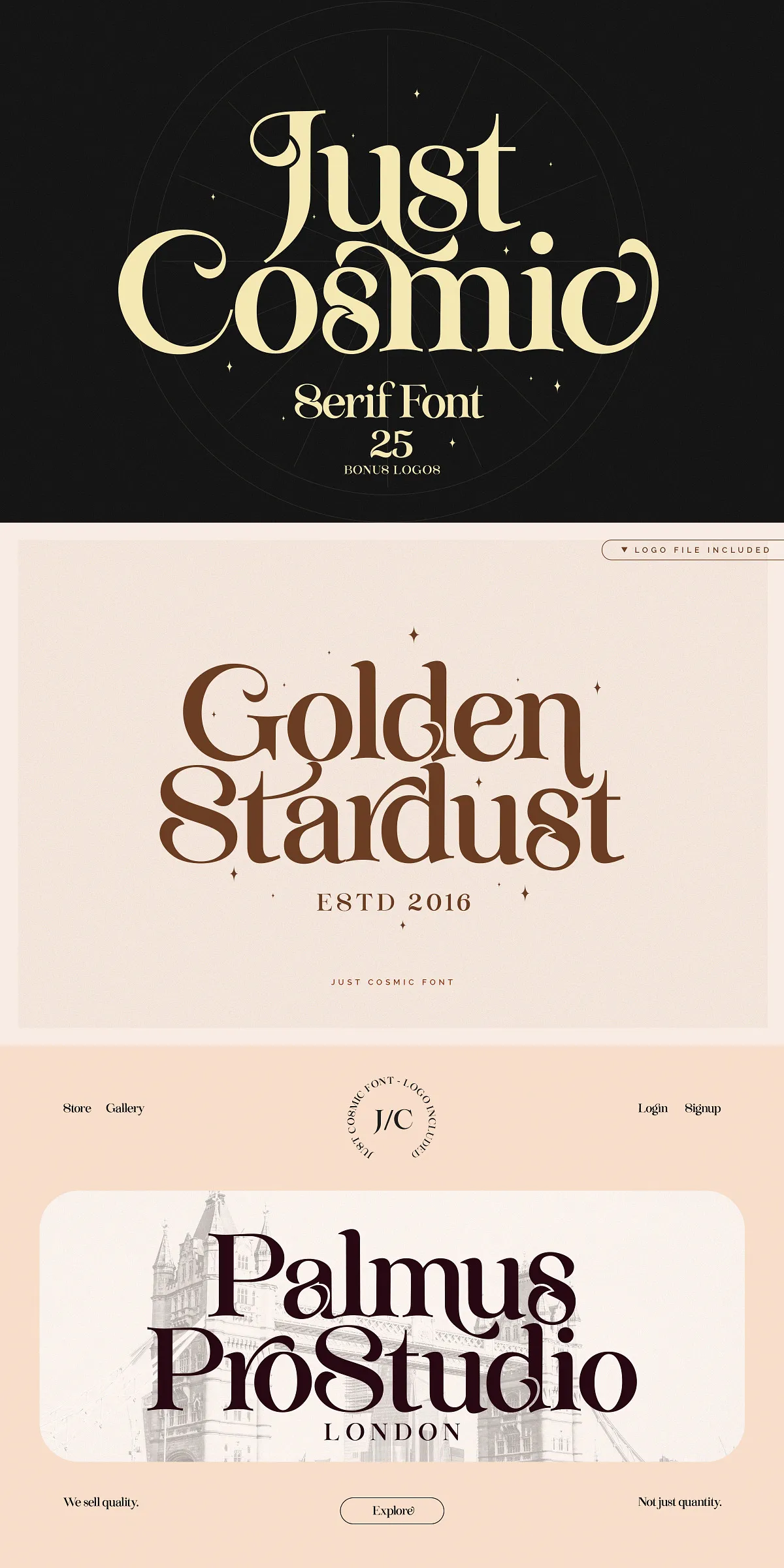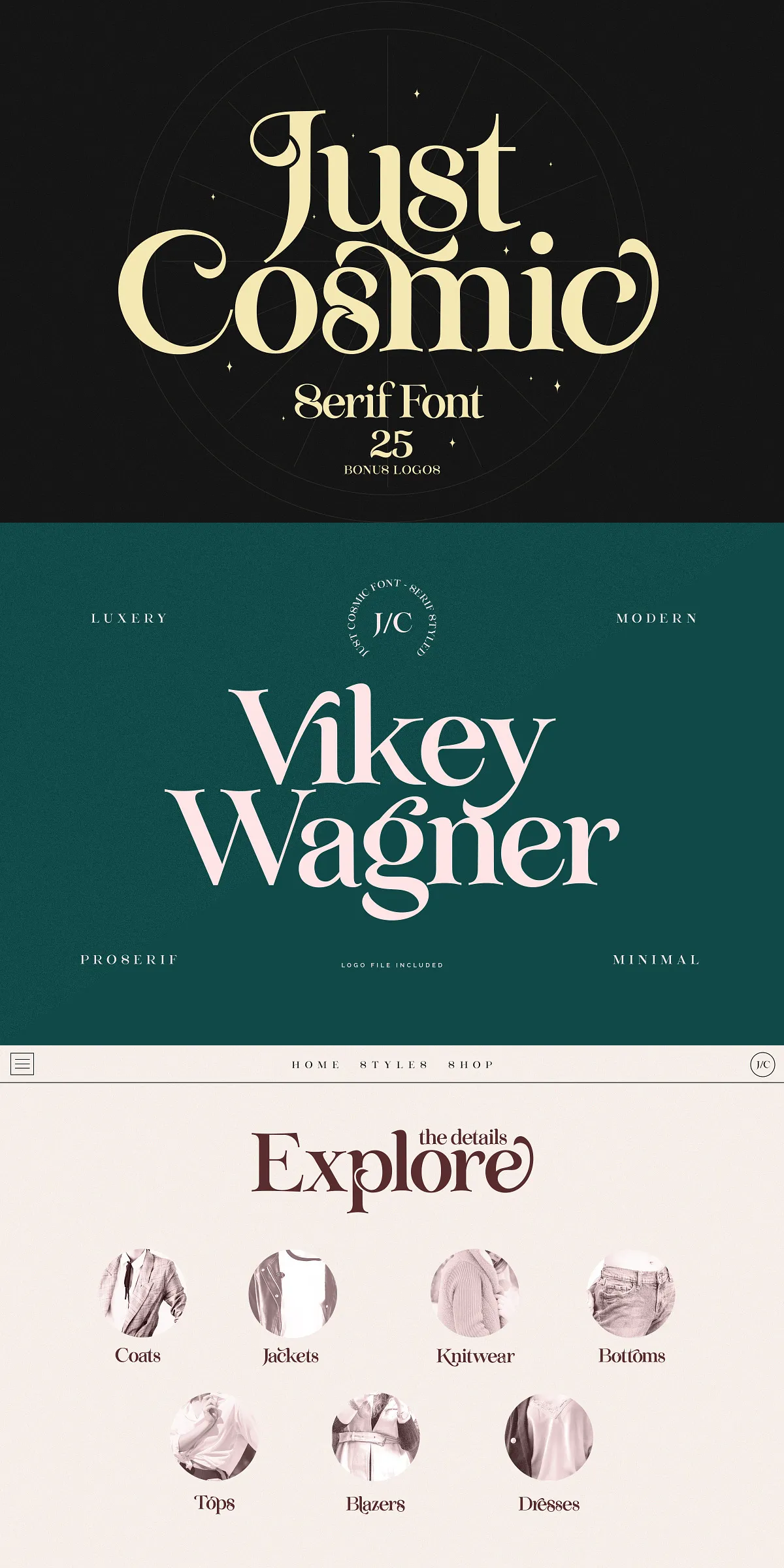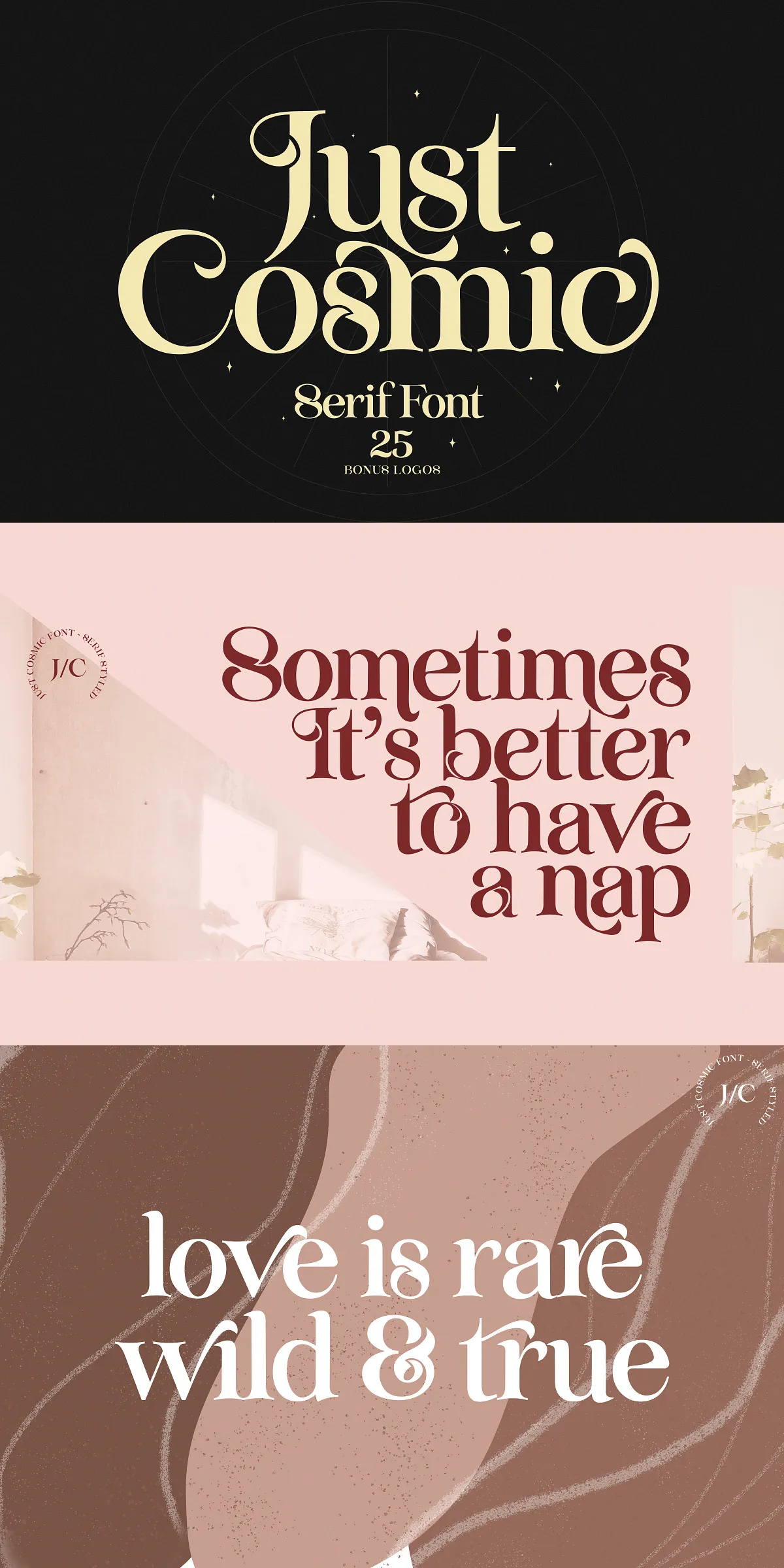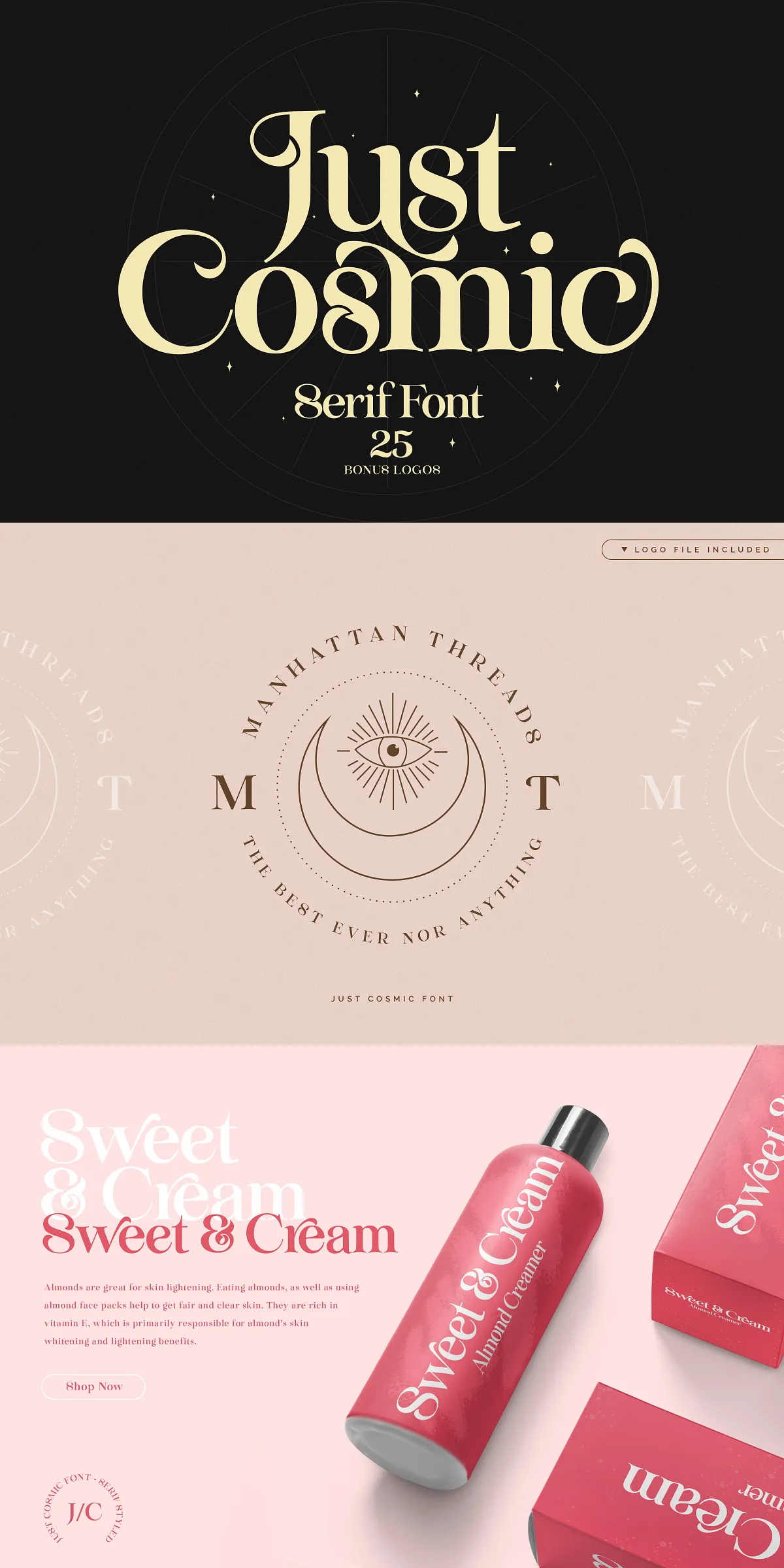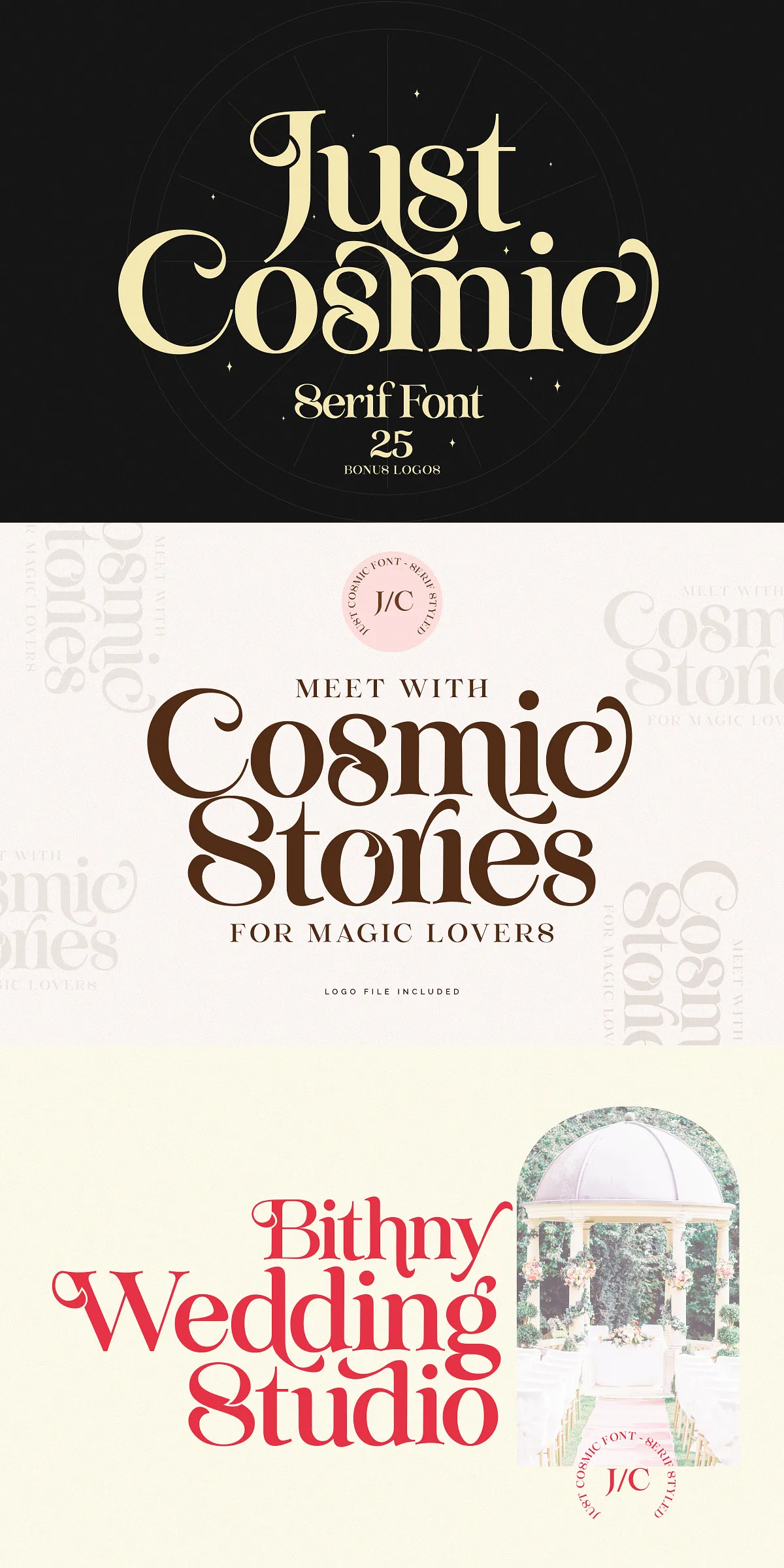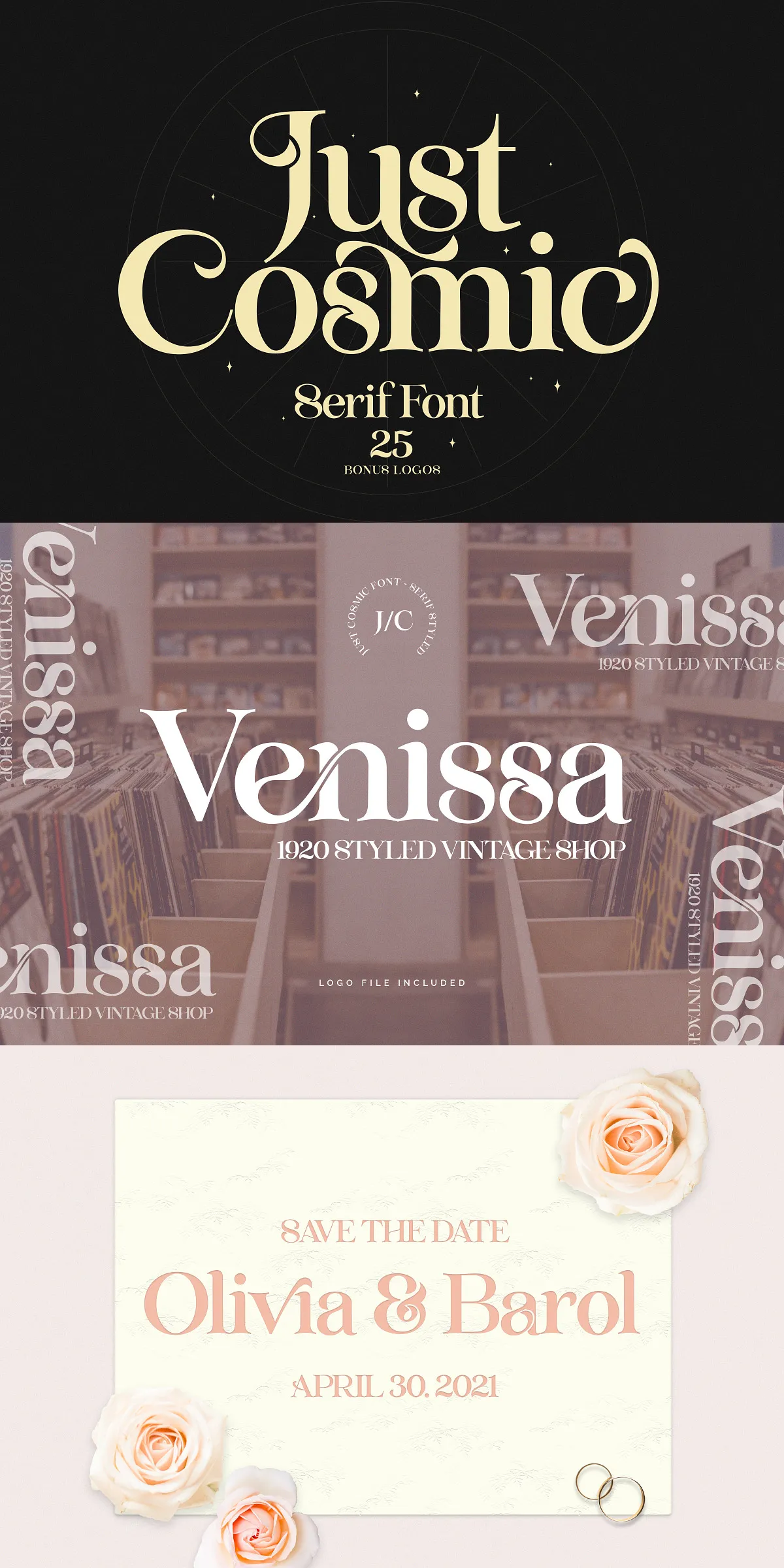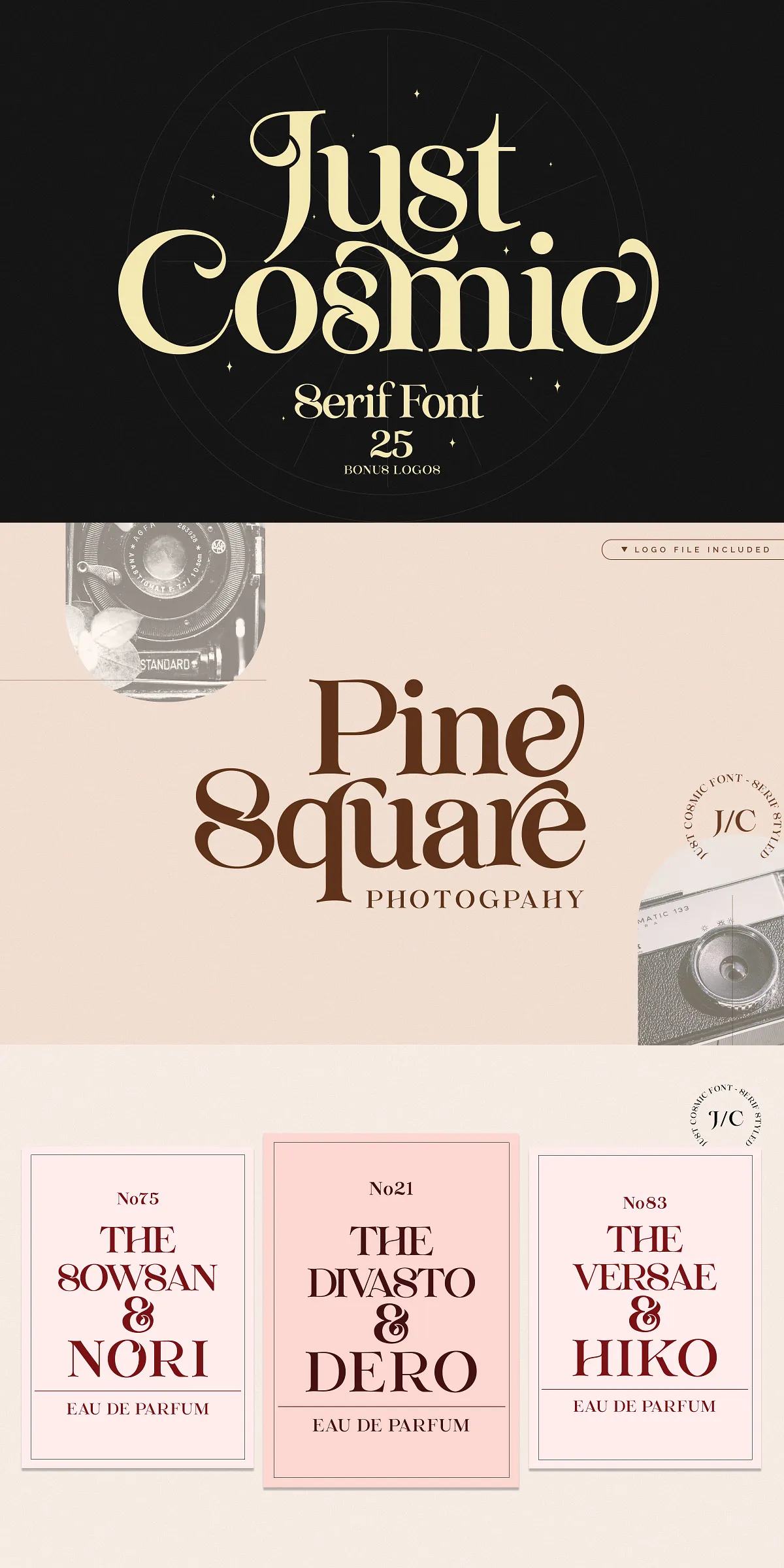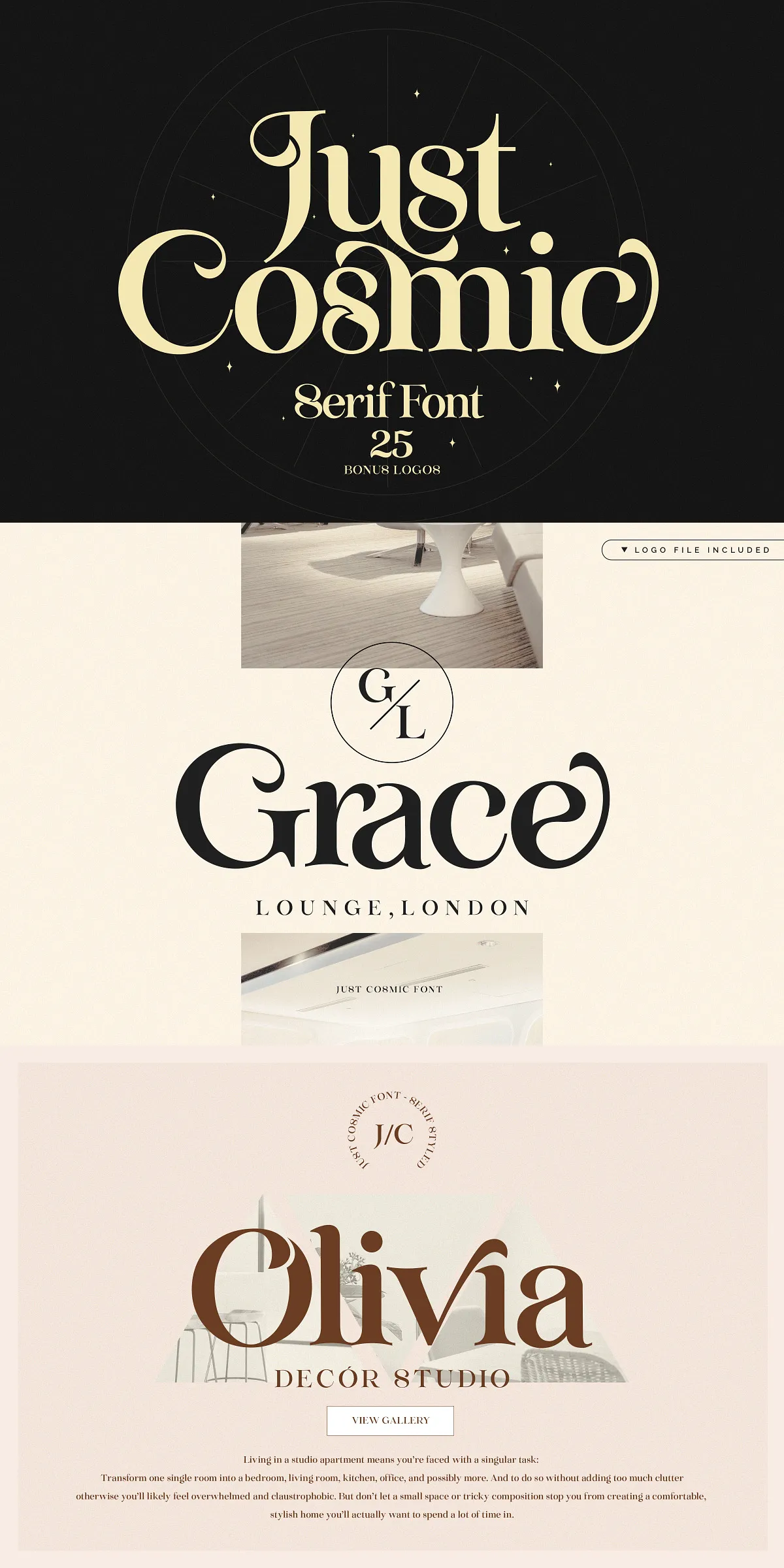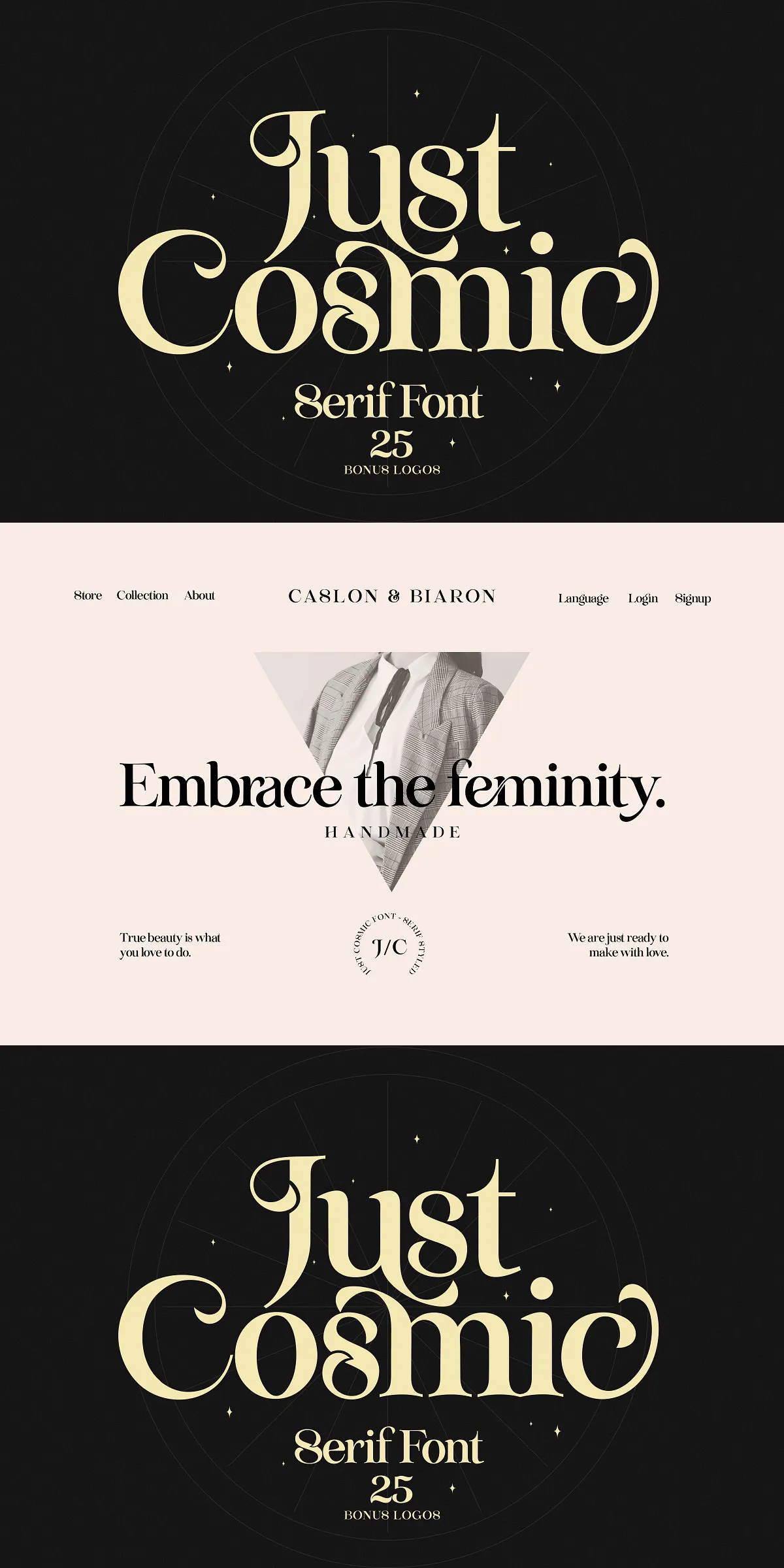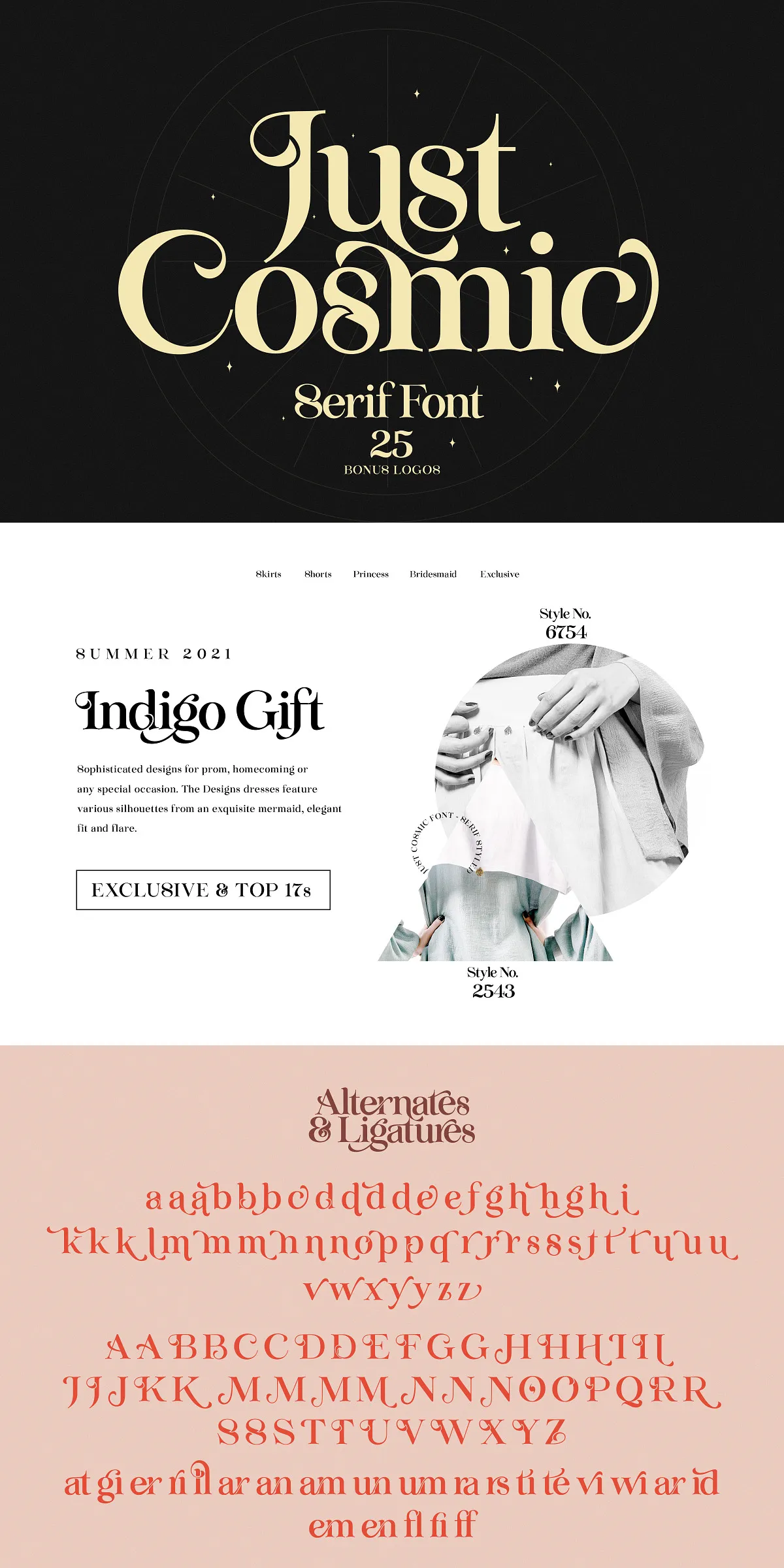
Unleash your creativity with Just Comic — a vibrant, handcrafted vintage serif font that brings enchantment to every design. More than just a typeface, it’s a full creative experience: rich with whimsical cutout ligatures, expressive stylistic alternates, and a playful soul that breathes life into text. Whether you’re crafting delicate chalkboard art, bold vintage posters, or elegant feminine branding, Just Comic transforms ordinary words into storytelling masterpieces.
Why Just Comic Is a Designer’s Dream
Designed for the bold and the imaginative, Just Comic doesn’t just follow trends — it sets them. The font features meticulously crafted letterforms with organic flourishes, subtle asymmetry, and dynamic spacing that mimic the charm of hand-drawn typography. Its core strength lies in versatility: it performs beautifully as both a display font for headlines and a text font for extended paragraphs, filling the space between lines with effortless grace.
Transform Your Text with Dynamic Visual Features
Every character in Just Comic is engineered to inspire. Here’s what makes it truly magical:
- Cutout Ligatures — Unique, custom-designed ligatures that create artistic voids and visual flow (e.g., “fi”, “fl”, “st”), perfect for editorial and decorative layouts.
- Stylistic Alternates — Choose from multiple variations of uppercase and lowercase letters to avoid repetition and add individuality to your project.
- Full Multilingual Support — Includes extensive character sets for European languages, accented letters, and special symbols (àáâäãåā æ ç èéêëē îïíīì ñ ôöòóøõ ûÚúüùu ÿ ý ỳ ŷ þ œ ¡ ¿ ), ensuring your message reaches global audiences without limitation.
- Accurate Kerning — Precision spacing between characters ensures smooth, professional typography across all weights and applications.
- Fully Vector-Designed — Scalable without loss of quality — perfect for high-resolution printing, web use, and vinyl cutting.
25 Fully Editable Logos: Instant Branding Power
Go beyond fonts — launch your brand with 25 fully editable logo templates included in this pack. Perfect for:
- Creative Brands — Coffee shops, boutiques, handmade crafts, and lifestyle labels.
- Art & Craft Projects — Ideal for bullet journaling, tattoo design, and vinyl decals.
- Event & Wedding Invitations — Add personal flair with vintage-inspired layouts.
- Circuit & Silhouette Projects — Compatible with cutting machines for seamless digital-to-physical creation.
Perfect for Every Creative Project
Just Comic thrives in styles that demand personality:
- Cursive & Handwriting Style — Mimics natural flow with elegant, connected strokes.
- Chalkboard & Rustic Aesthetic — Brings vintage warmth to menus, signs, and event posters.
- Feminine & Premium Branding — Adds soft, refined elegance to fashion, beauty, and bridal designs.
- Modern Vintage Fusion — Blends nostalgia with clean lines for a fresh, stylish look.
It’s not just a font — it’s a complete design toolkit for anyone who values originality, charm, and creative control.